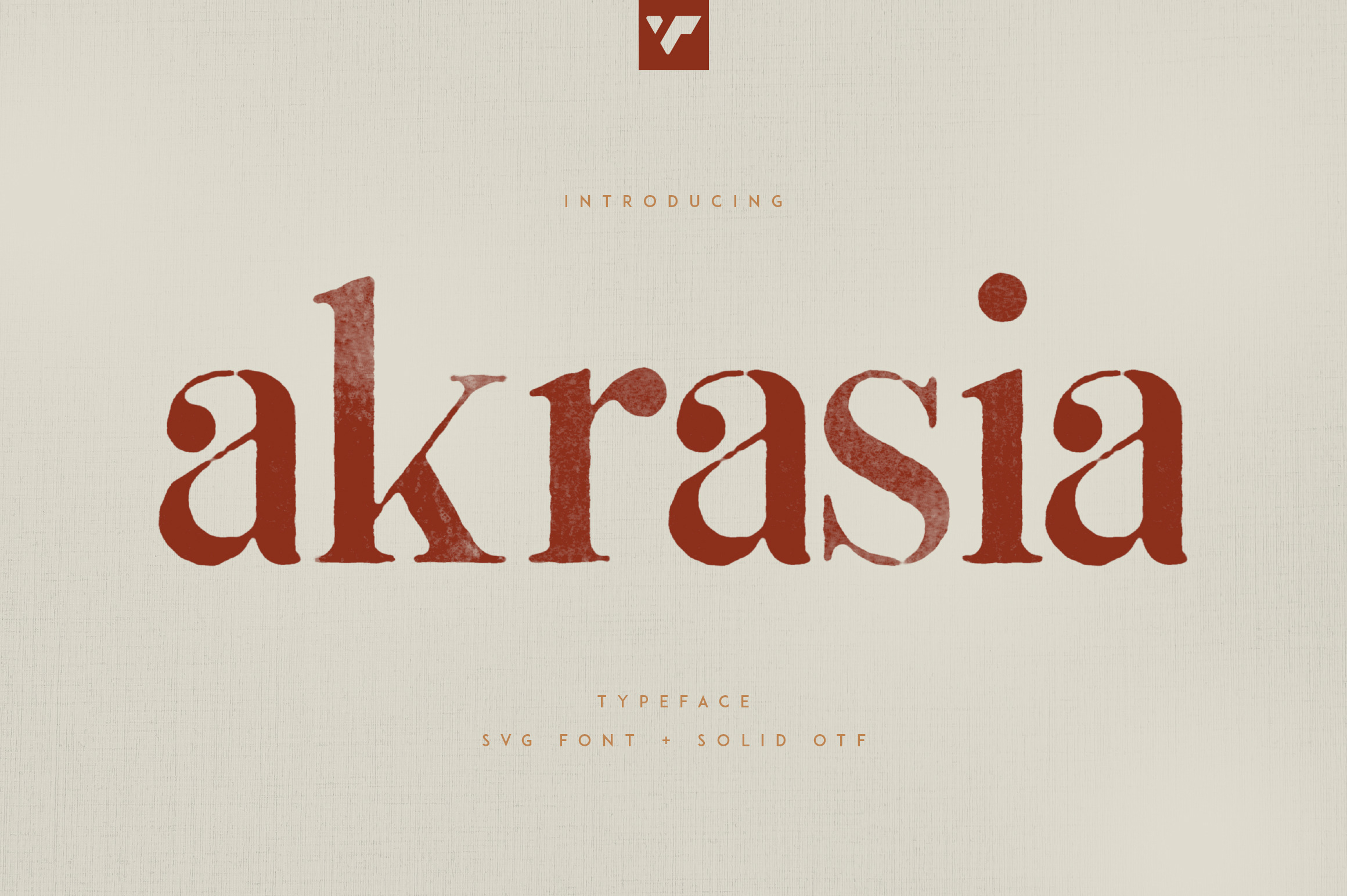
Introducing Akrasia Typeface - Bitmap vsg + solid fonts
Akrasia is perfect for branding projects, home-ware designs, product packaging, magazine headers - or simply as a stylish text overlay to any background image.